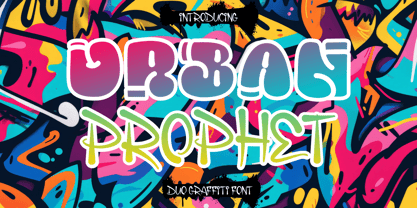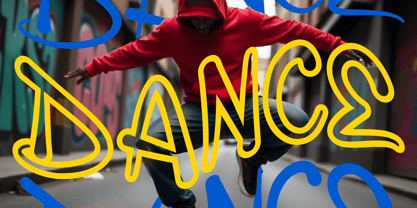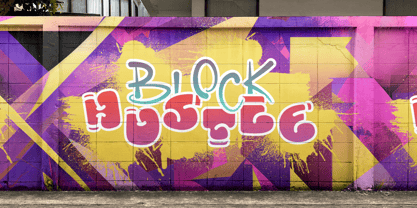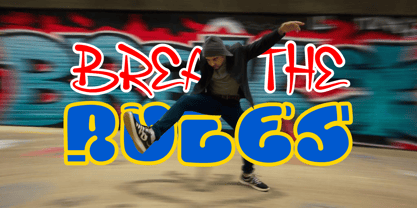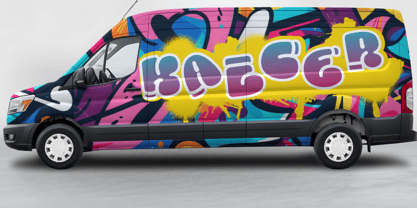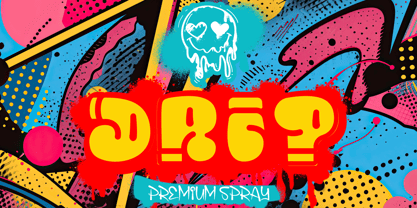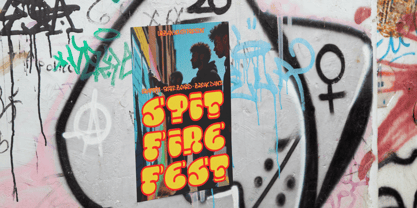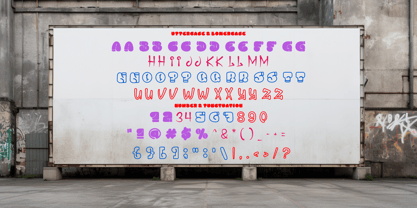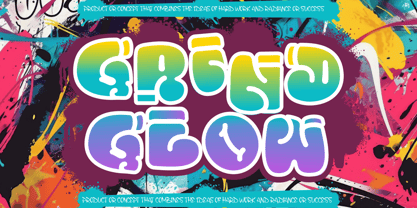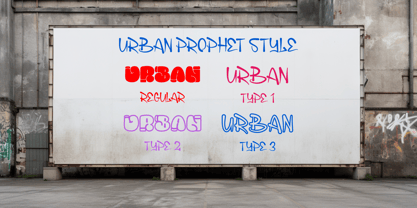
Urban Prophet
por Putracetol
La familia tipográfica Urban Prophet fue diseñada por Putra Novembria Candra Kusuma y publicada por Putracetol. Urban Prophet contiene 4 estilos y opciones de paquete familiar. Más información sobre esta familia
Urban Prophet is a vibrant and dynamic duo graffiti font that combines bold street art aesthetics with a modern, playful twist. The primary typeface features smooth, rounded letters with gradient fills, giving it a bold, graffiti-inspired look that instantly grabs attention. Meanwhile, the secondary script style adds a casual, hand-drawn vibe, perfect for complementing the main font in dynamic compositions. Together, these two styles offer versatility and creativity for various design projects. The bright gradient hues of blue, purple, pink, and green enhance its youthful energy, while the white outline ensures readability against colorful, chaotic graffiti backgrounds. This font is a perfect match for urban-themed projects, giving your designs a modern street vibe.
The background design, splattered with multicolored graffiti patterns and strokes, enhances the font's lively and expressive personality. Urban Prophet is ideal for logos, posters, packaging, stickers, and other projects where a fun, edgy, and artistic touch is needed. Whether you're crafting a streetwear brand or designing a funky event flyer, Urban Prophet delivers unmatched creativity and style.